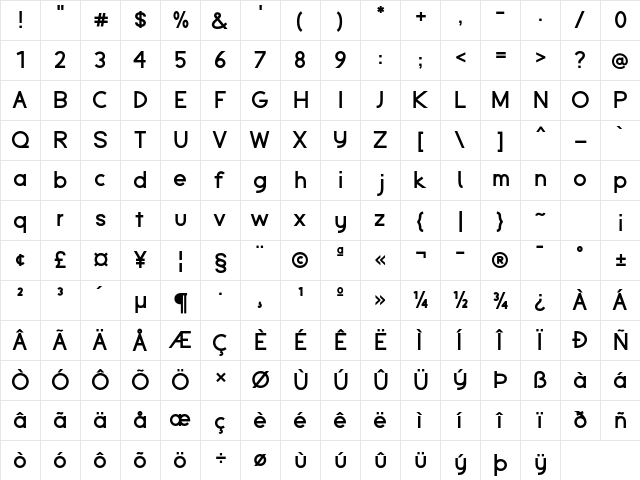
Espera Bold
| Designer | Barbara Trein |
Design Context for Espera Typeface
Espera takes a measured approach to typography — its balanced proportions and neutral character make it a reliable workhorse for both digital and print work. Its bold stroke weight gives it real presence on the page.